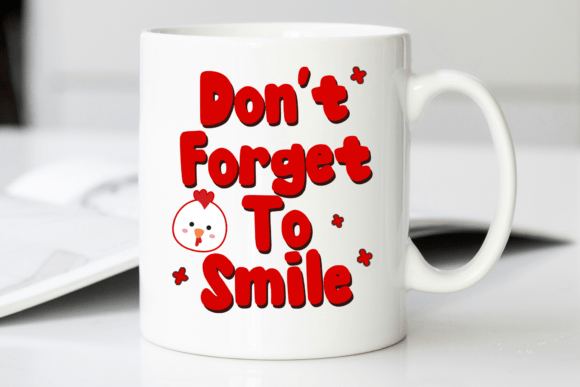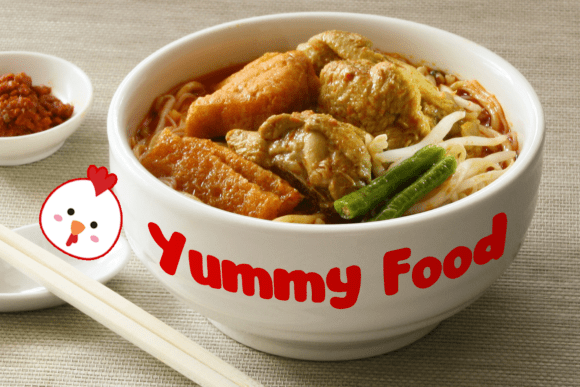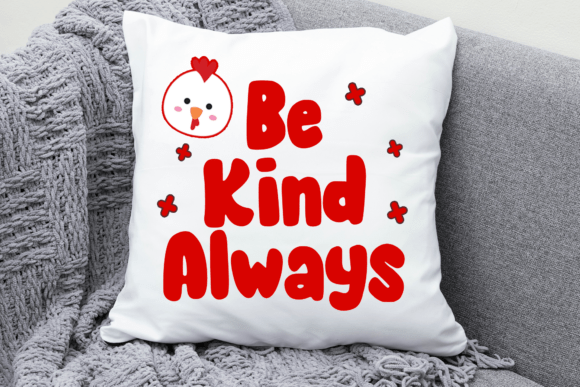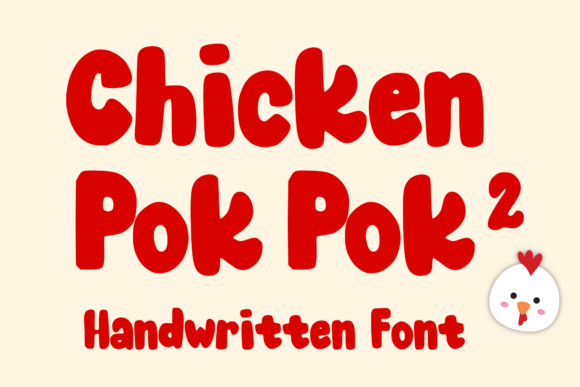
Introduction to Chicken Pok Pok 2 Font
Chicken Pok Pok 2 is a cute and versatile handwritten font, suitable for your food and beverage themed designs and more.
You can use it for anything ranging from t-shirts, kids’ book designs, and greeting cards to stickers and posters, you can use it for your food and beverage business or anything that needs a fun touch Fall in love with its incredibly versatile style, and use it to create lovely designs.
Key Features of Chicken Pok Pok 2 Font
Why Choose Chicken Pok Pok 2 Font?
Chicken Pok Pok 2 Font offers exceptional quality and versatility, making it a valuable addition to your design toolkit. Whether you’re creating for personal projects or commercial use, Chicken Pok Pok 2 Font delivers professional results.